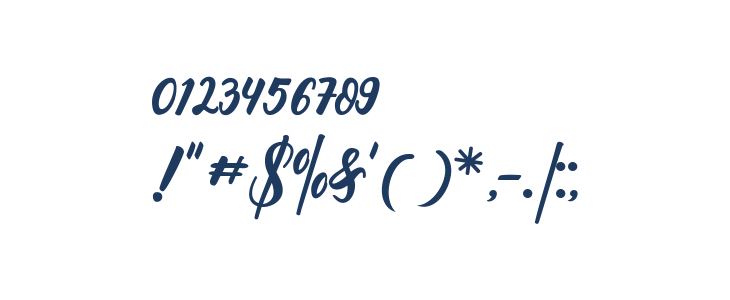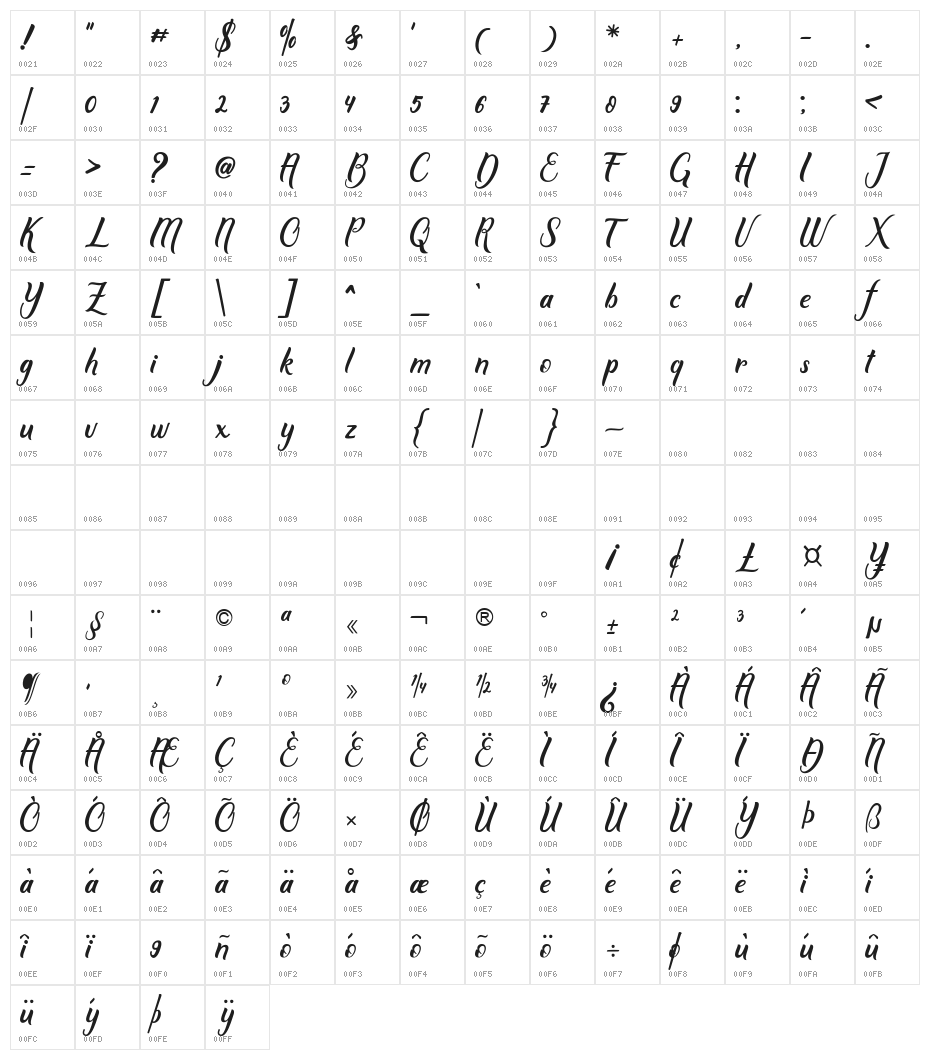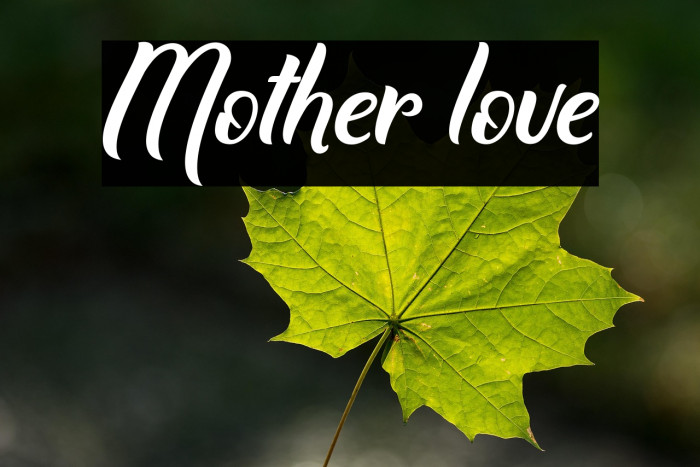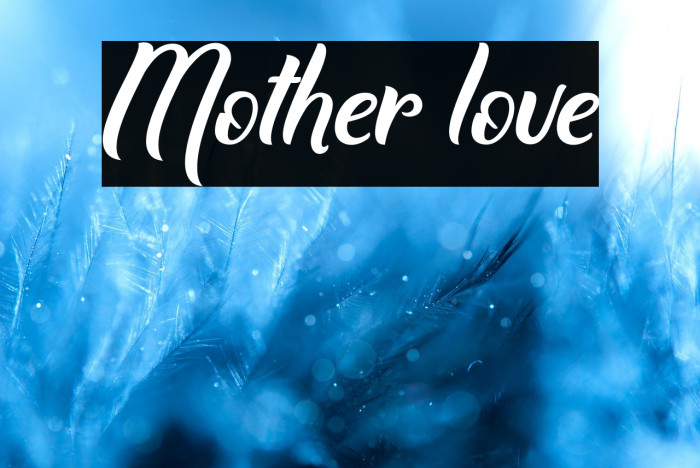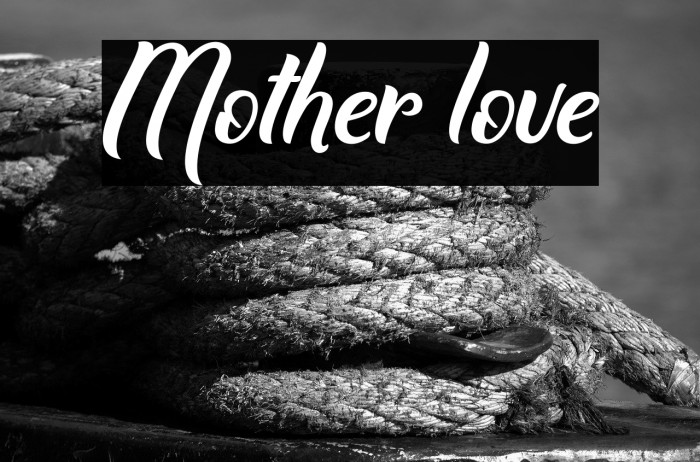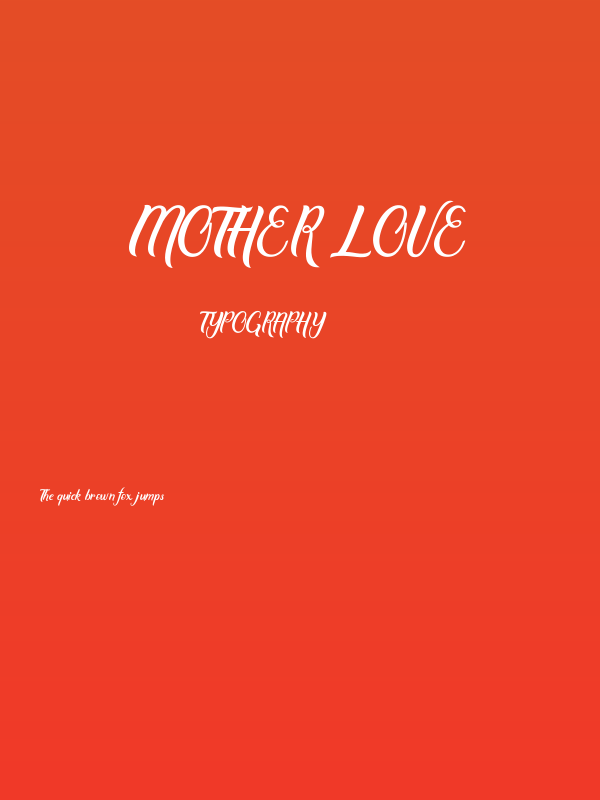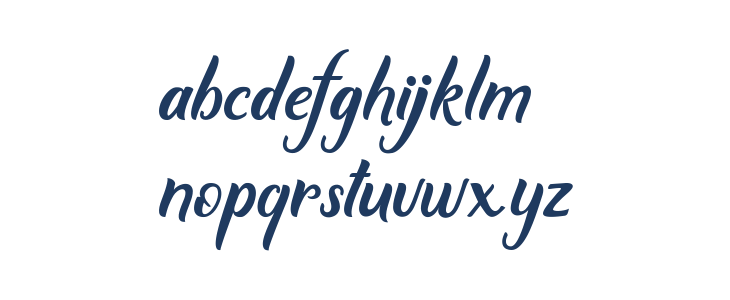
Mother love Font
Mother love Description
This font features a dynamic and flowing script style, characterized by its elegant and cursive letterforms. The uppercase letters exhibit a graceful slant with smooth, sweeping curves, while the lowercase letters maintain a consistent fluidity, enhancing readability. The numerals are designed with a similar flair, ensuring cohesion across all characters. Special characters are thoughtfully crafted, maintaining the overall aesthetic of the font. The strokes vary in thickness, providing a medium contrast that adds to the font's sophisticated appearance. This font exudes a sense of elegance and charm, making it suitable for a variety of creative applications.
Overall StyleElegant
Use CaseLogos, Invitations, Branding
Proposed ProjectsIdeal for wedding invitations, greeting cards, branding projects, and elegant logo designs.